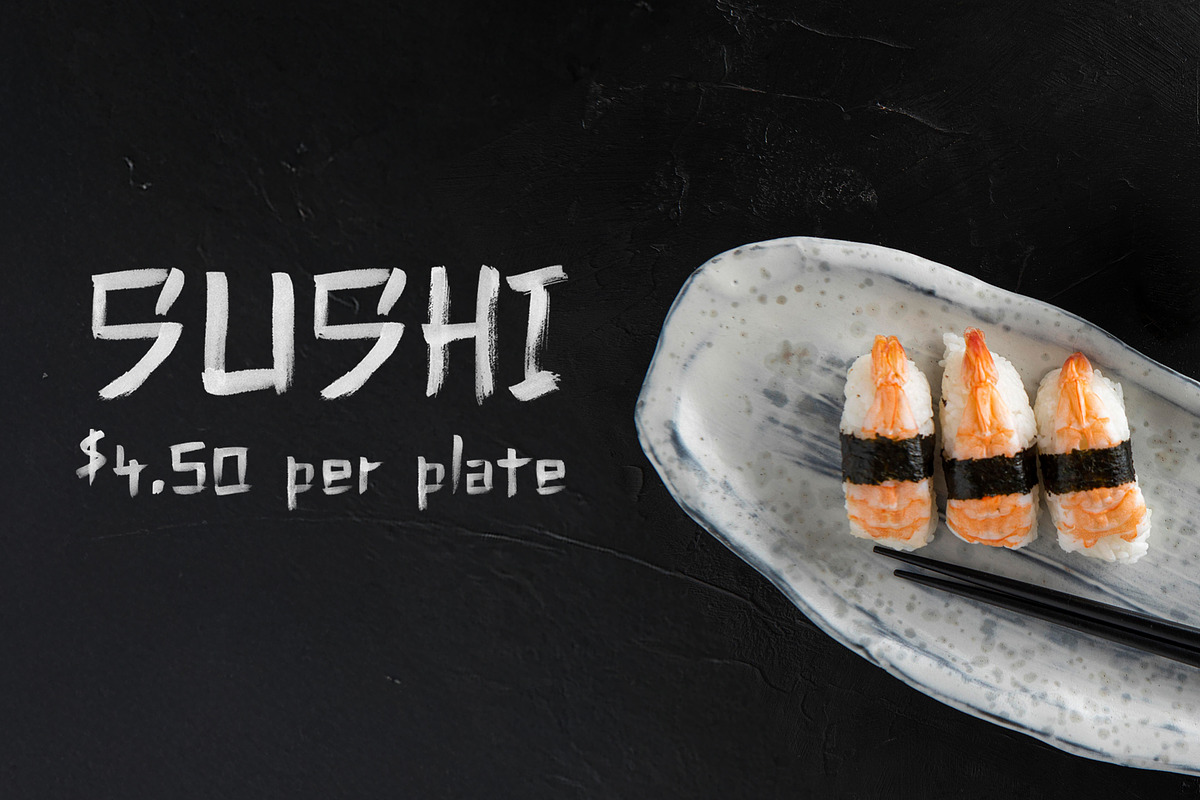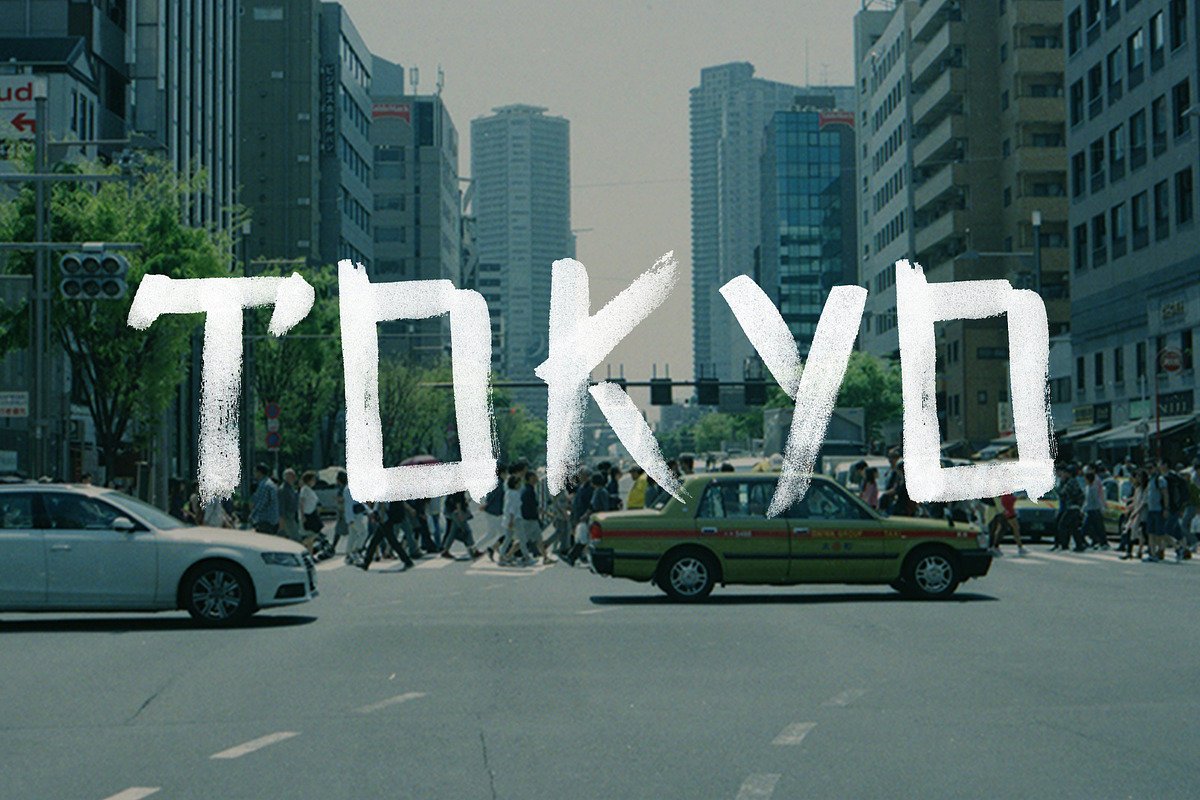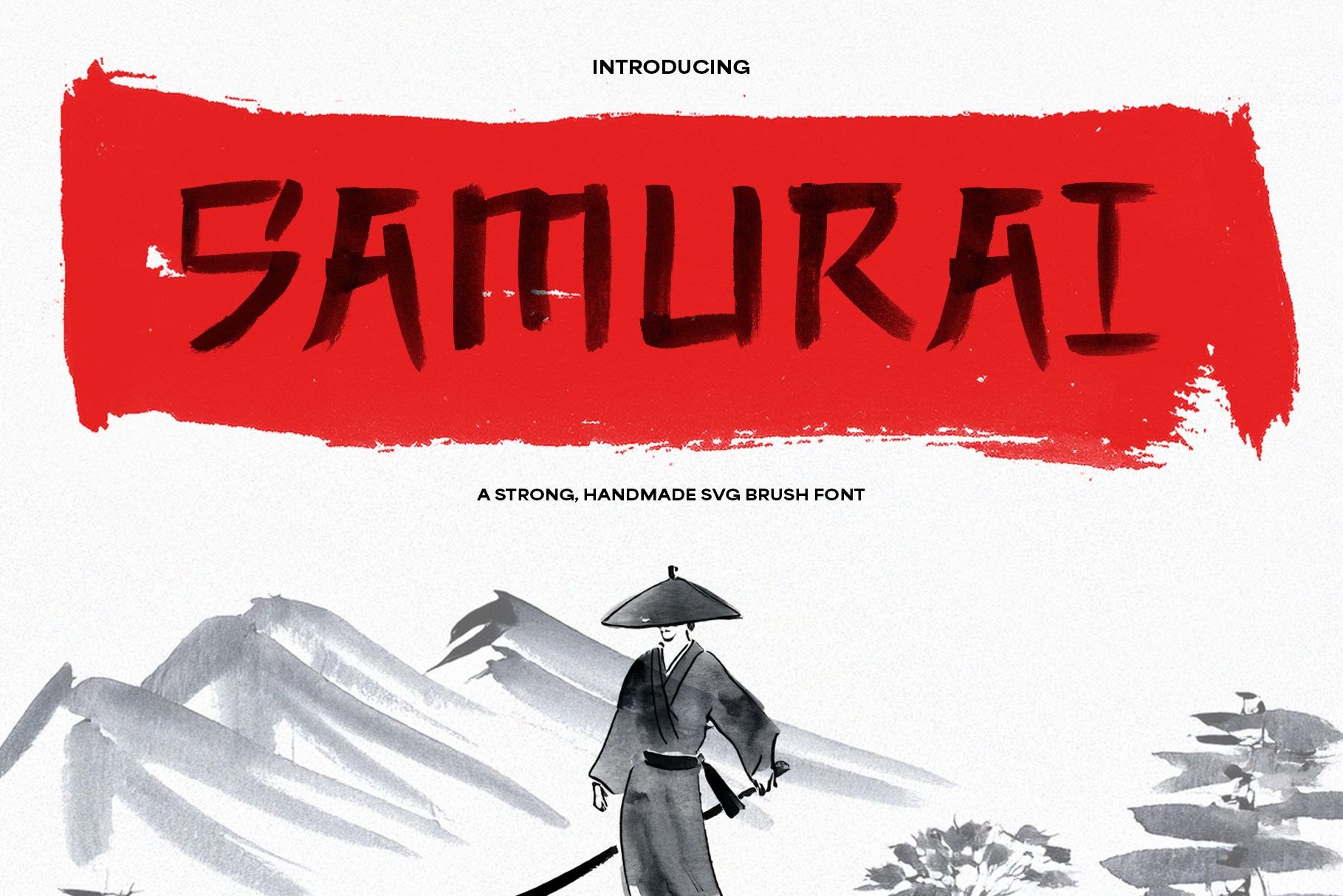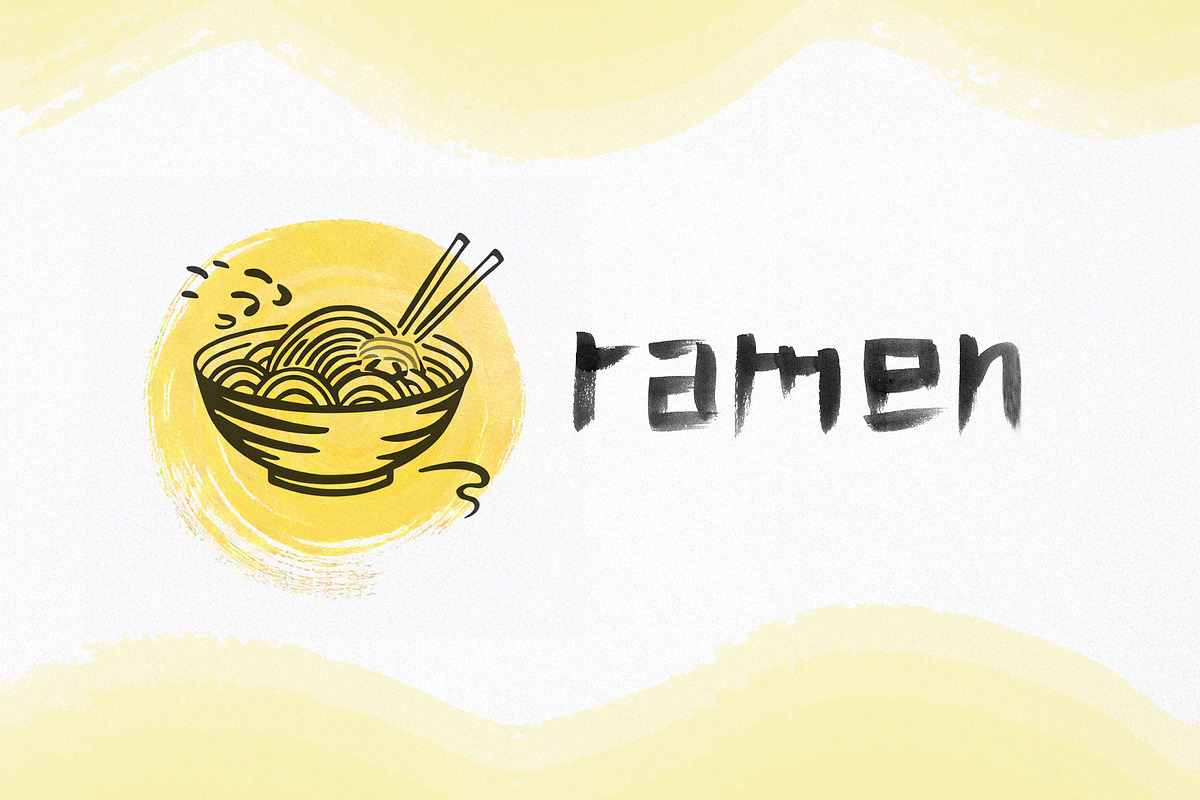
Samurai - Handmade Brush SVG Font
Unleash the art of Japanese calligraphy with Samurai, an authentic SVG/bitmap font crafted using traditional Japanese calligraphy brushes and inks. This typeface is a harmonious blend of artistry and precision, offering a bold and expressive design inspired by the broad strokes of katakana, hiragana, and kanji.
- Authentic Japanese Craftsmanship: Each character is meticulously designed to emulate the flowing strokes of traditional calligraphy.
- Versatile Glyph Set: Features uppercase and lowercase letters, numbers, symbols, punctuation, and glyph alternates, offering creative freedom.
- Dynamic Design: A predominantly strong, square structure with occasional curvier alternates for a unique aesthetic.